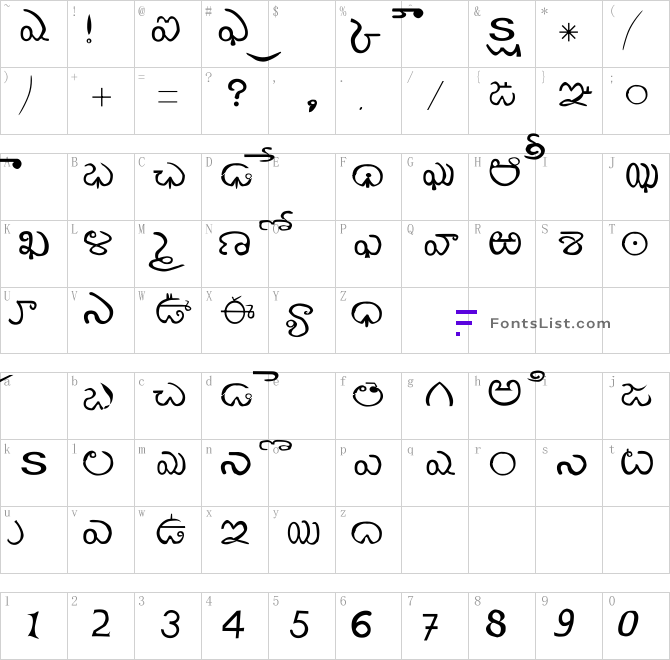
- Font Name:abtelgu
abtelgu.ttf is a very beautiful artistic font, abtelgu.ttf is widely used in the design and printing of various books and pictures,abtelgu.ttf has a strong visual impact,abtelgu.ttf is a commonly used font in newspapers, magazines and books, and is used in posters, e-commerce Poster design, store design, logo design, font design and other fields.abtelgu.